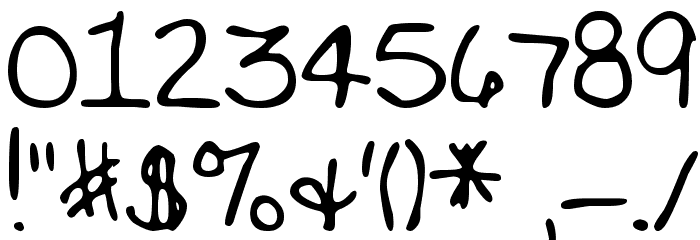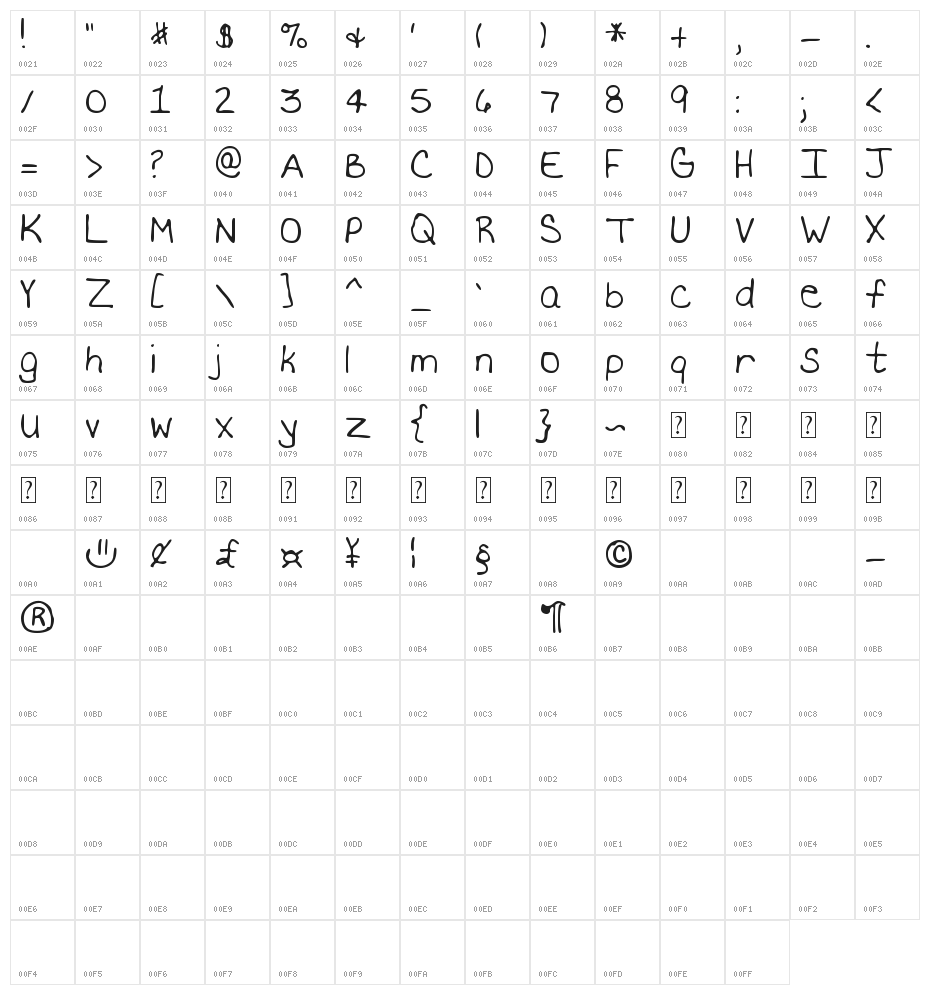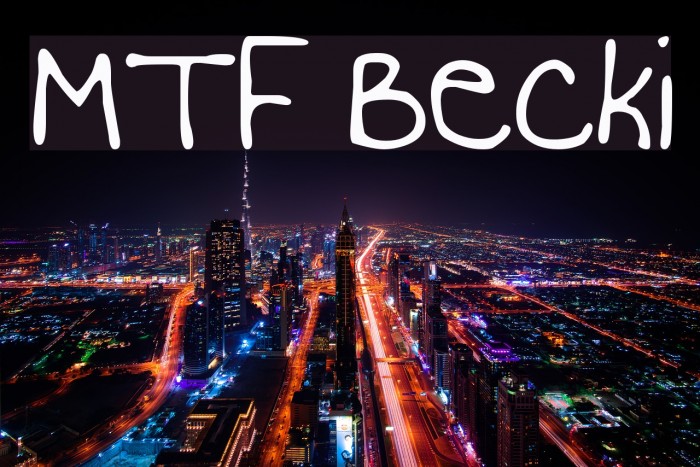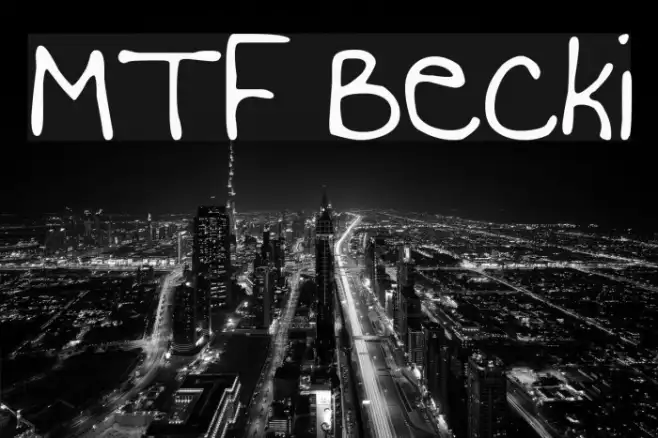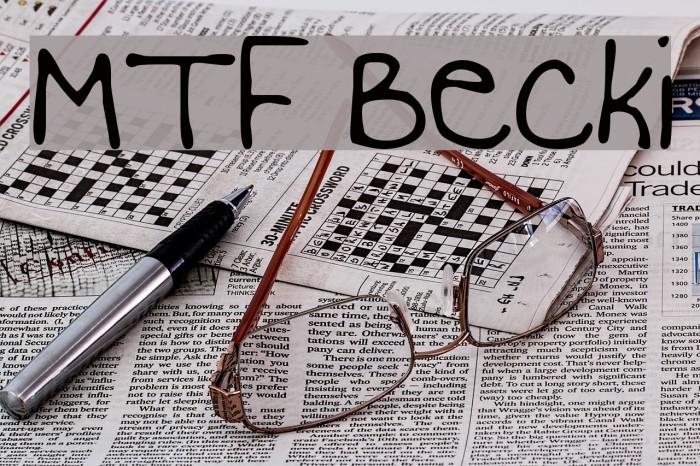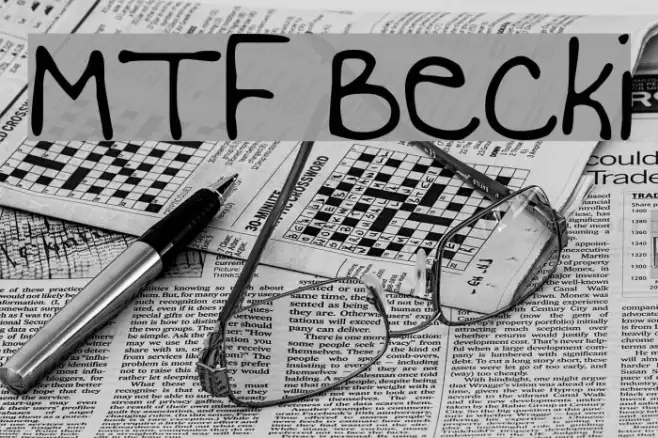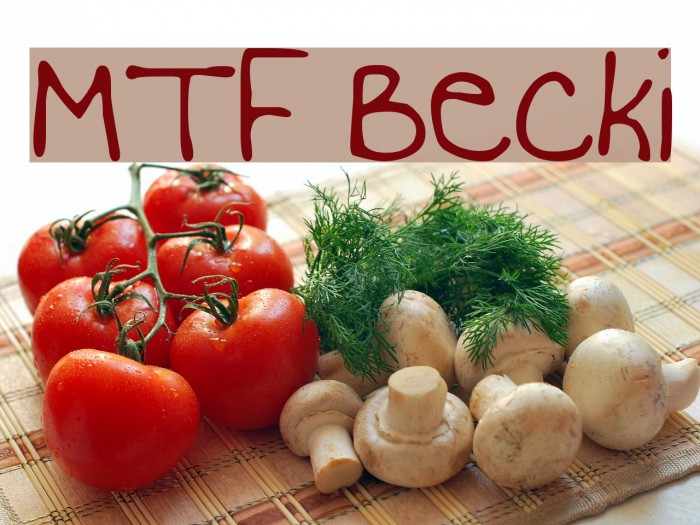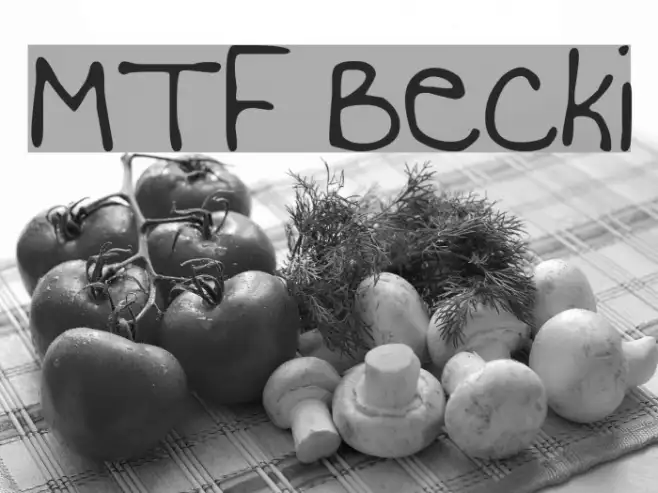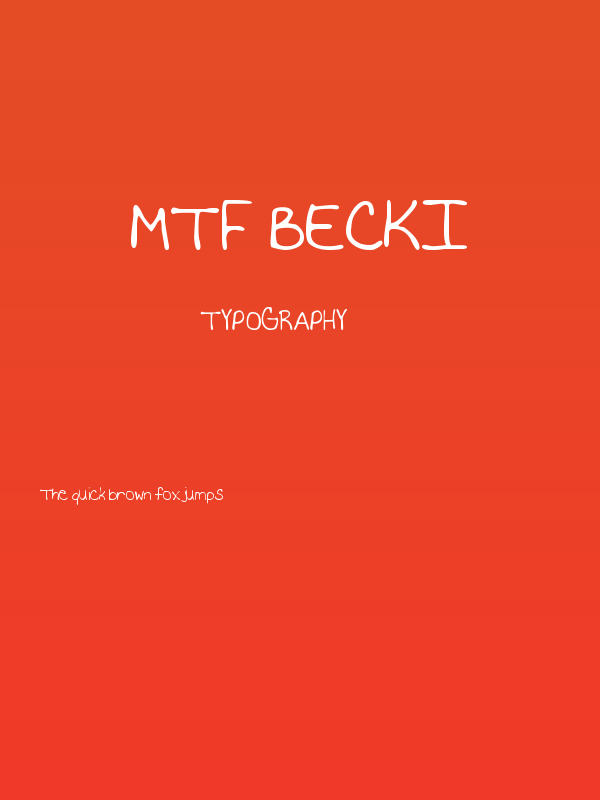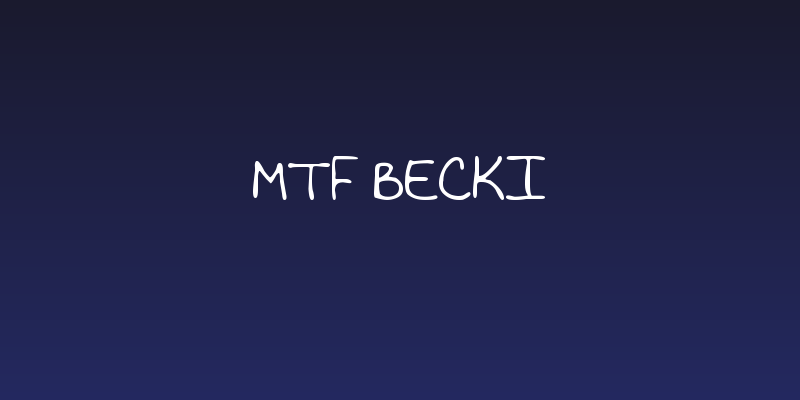
MTF Becki Font
MTF Becki Description
This playful and informal font features a handwritten style with a casual, friendly appearance. The letters are slightly irregular, adding a personal touch that mimics natural handwriting. The strokes are consistent in thickness, giving the font a uniform look while maintaining its whimsical charm. The characters are well-spaced, ensuring readability while preserving the font's unique character. The numbers and special characters follow the same style, making it versatile for various uses.
| Proposed Projects | Ideal for children's books, greeting cards, personal blogs, and informal branding projects. |